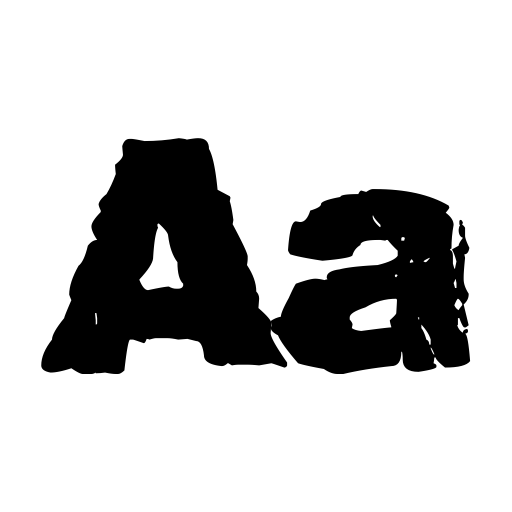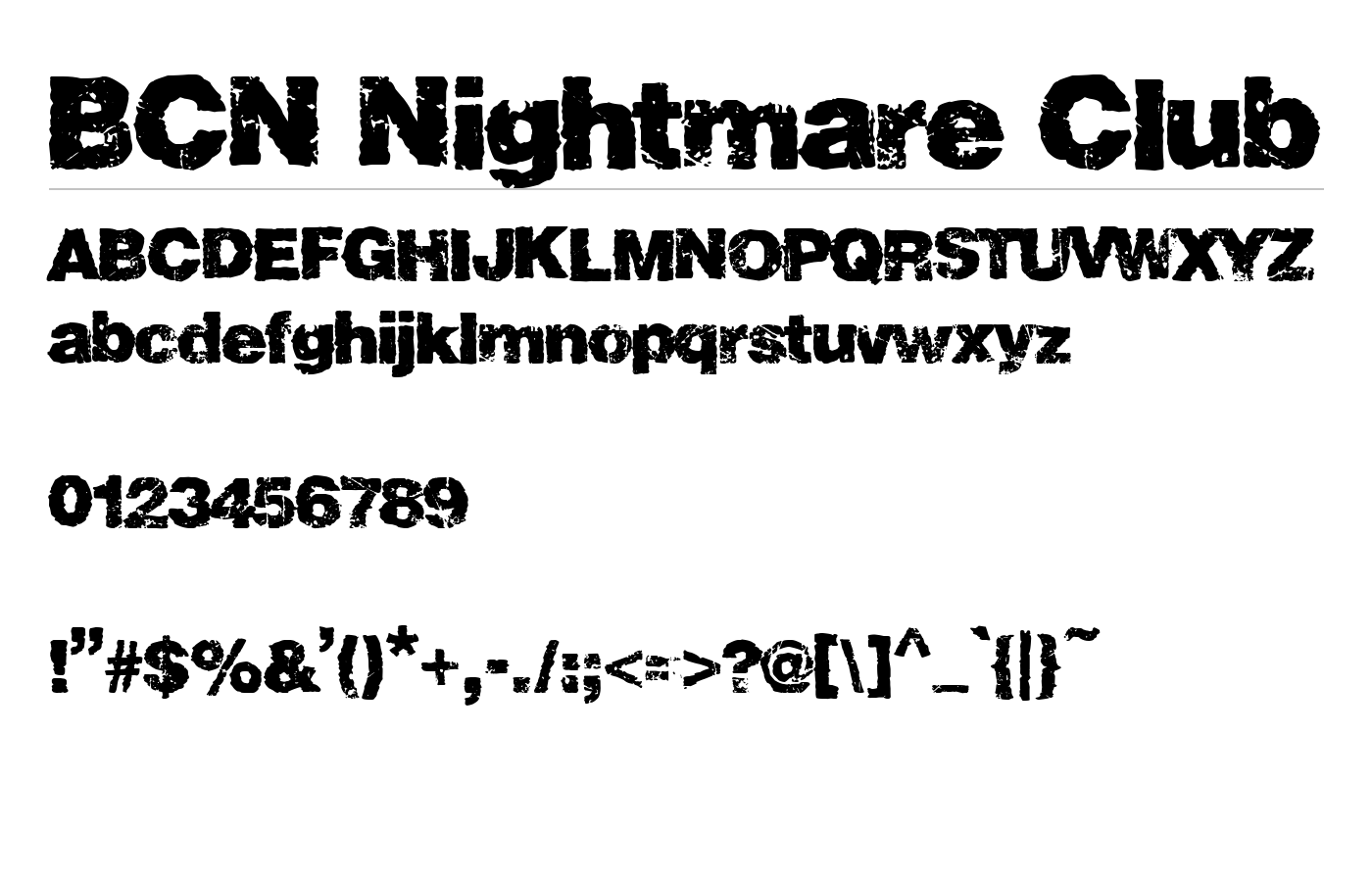
BCN Nightmare Club is a bold, distressed sans serif font with a rough, textured look that evokes a gritty, edgy vibe. Its strong, chunky letterforms with irregular edges give it a raw and rebellious personality, making it perfect for designs that want to convey intensity and a sense of underground style. This font works well for posters, logos, or branding in alternative music, urban culture, and other creative projects that need a bold and attention-grabbing statement.
BCN Nightmare Club Font
About BCN Nightmare Club Font